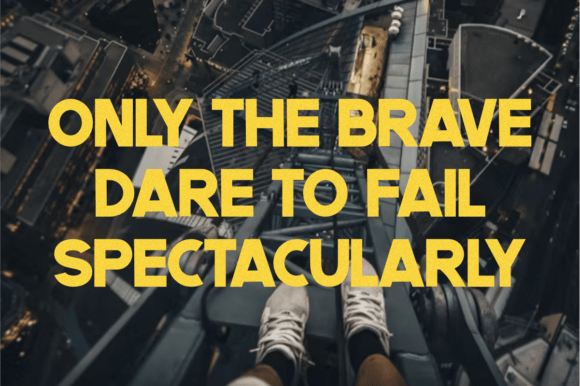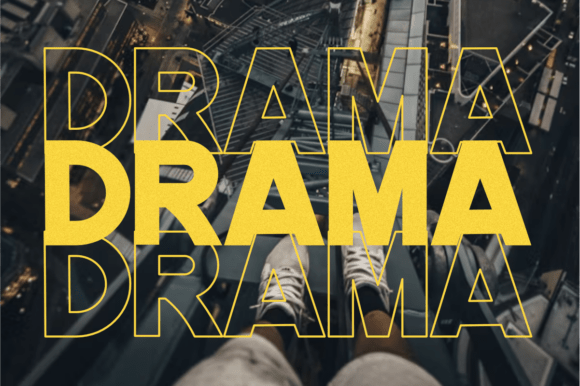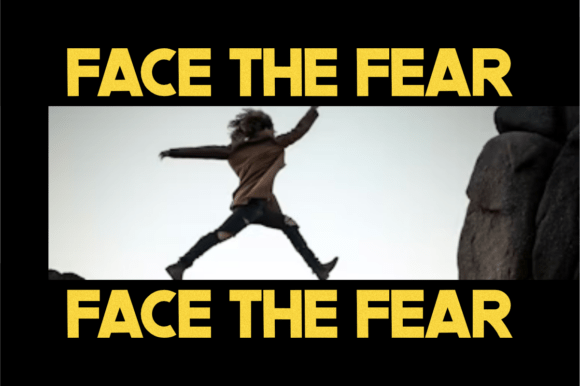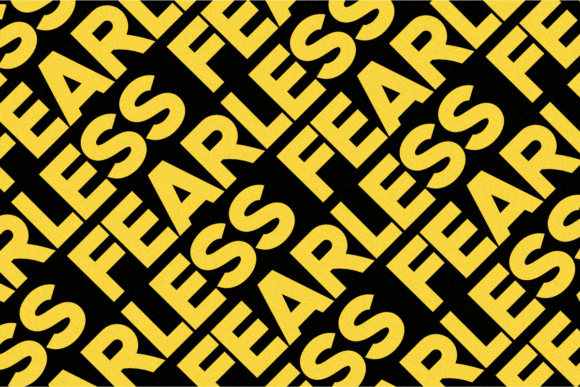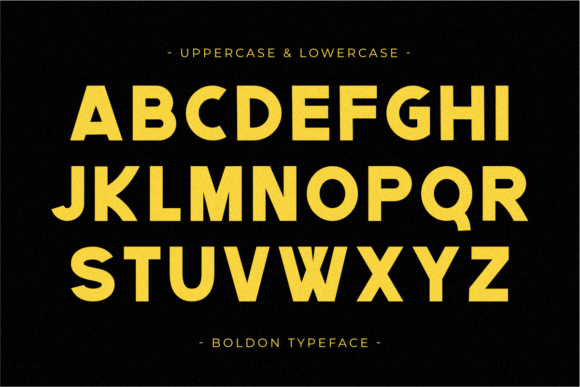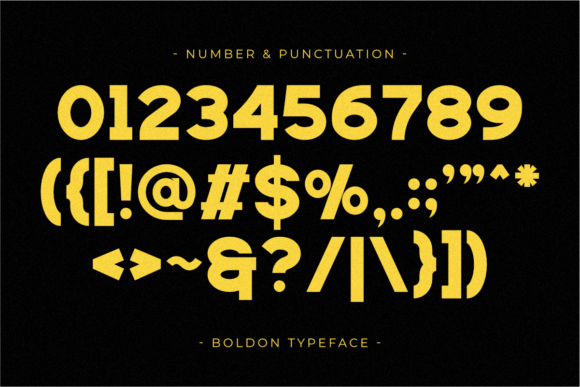
The Power of Boldon Font: A Modern Sans Serif for Impactful Designs
I still remember the time I was working on a project for a sports brand, struggling to find the perfect font that could convey the energy and dynamism of the brand. The client wanted a bold, attention-grabbing font that could make their logo and marketing materials stand out. After hours of searching, I stumbled upon Boldon Font, and it was love at first sight! 💡
Boldon is an impactful and assertive Modern Sans Serif font designed for maximum visual weight. Its ultra-thick, condensed structure makes it perfect for high-impact branding, powerful editorial layouts, sports logos, and commanding headlines. In this article, I’ll share my experience with Boldon Font, its features, and how to make the most of it in your designs.
An Honest Review of Boldon Font
- 💥 **Impactful and attention-grabbing**: Boldon Font is designed to make a statement. Its bold and condensed structure makes it perfect for headlines, titles, and logos that need to stand out.
- ✅ **Sophisticated and contemporary**: The font has a clean and modern look that works well for brands that want to convey a sense of sophistication and elegance.
- 🎉 **Versatile**: Boldon Font is suitable for a wide range of projects, from sports logos to editorial layouts, and even sales and promotional content like Black Friday.
While Boldon Font is an excellent choice for many projects, there are a few things to keep in mind:
- 🤔 **Limited use in body text**: Due to its bold and condensed structure, Boldon Font may not be the best choice for body text. It’s better suited for headlines and titles.
- ⚠️ **Legibility at small sizes**: While the font is designed to be bold and attention-grabbing, it may not be legible at very small sizes. It’s best to use it at larger sizes to maximize its impact.
A Practical Guide to Using Boldon Font
If you like Boldon Font, you may also consider the following alternatives:
- Montserrat: A geometric sans-serif font with a similar modern and sleek look. Use it for projects that require a clean and elegant look.
- Arial Black: A bold and condensed sans-serif font that’s perfect for headlines and titles. Use it for projects that require a strong and attention-grabbing look.
- Impact: A bold and condensed sans-serif font that’s designed for maximum visual impact. Use it for projects that require a bold and commanding look.
- Akzidenz-Grotesk: A classic sans-serif font with a similar modern and sleek look. Use it for projects that require a clean and sophisticated look.
The Backstory of Boldon Font
Boldon Font was designed with the goal of creating a modern and impactful sans-serif font that could be used for a wide range of projects. The designer wanted to create a font that was both bold and elegant, making it perfect for brands that want to convey a sense of sophistication and energy.
| Font Name | Boldon Font |
| Author | Pian45 |
Q: What is Boldon Font best used for?
A: Boldon Font is best used for high-impact branding, powerful editorial layouts, sports logos, and commanding headlines.
Q: Is Boldon Font suitable for body text?
A: No, Boldon Font is not suitable for body text due to its bold and condensed structure. It’s better suited for headlines and titles.
Q: Is Boldon Font available in different styles?
A: Yes, Boldon Font is available in different styles, including regular, bold, and italic.